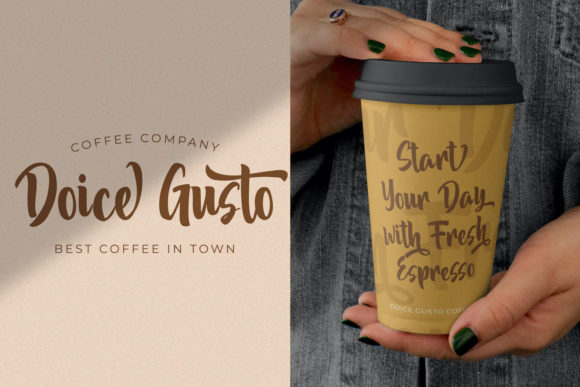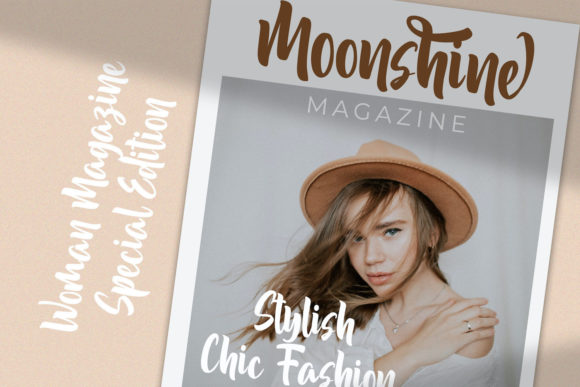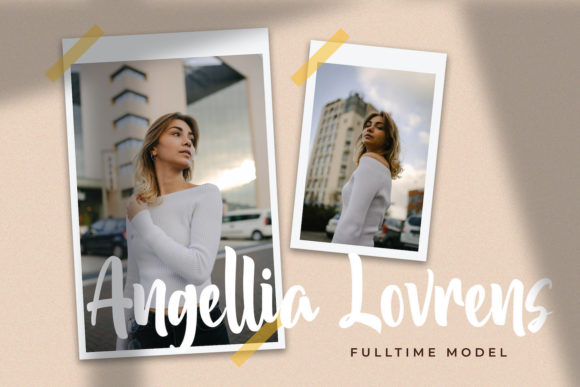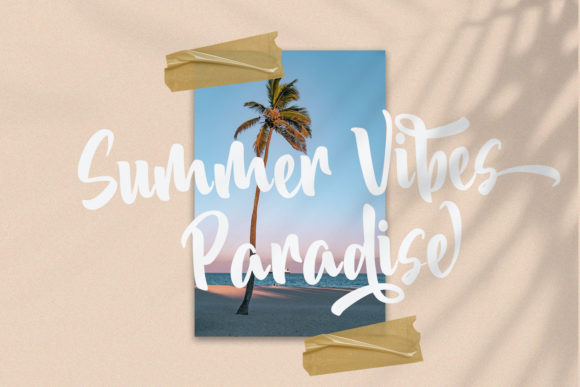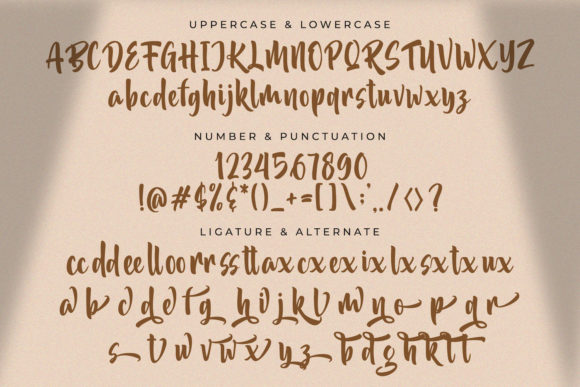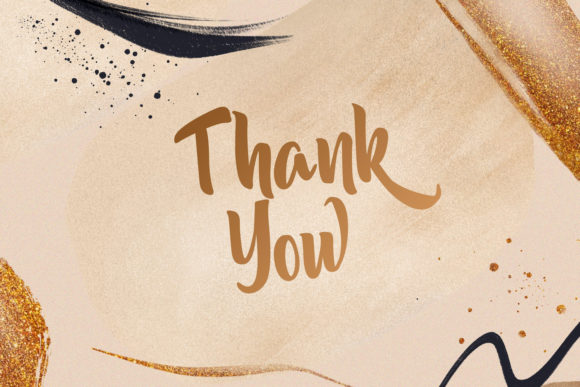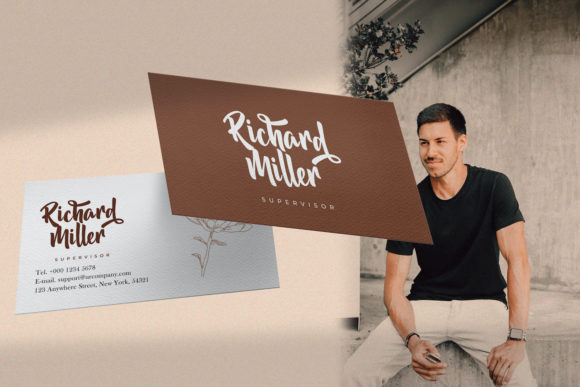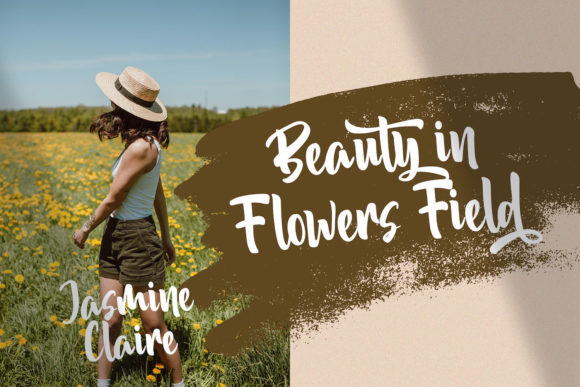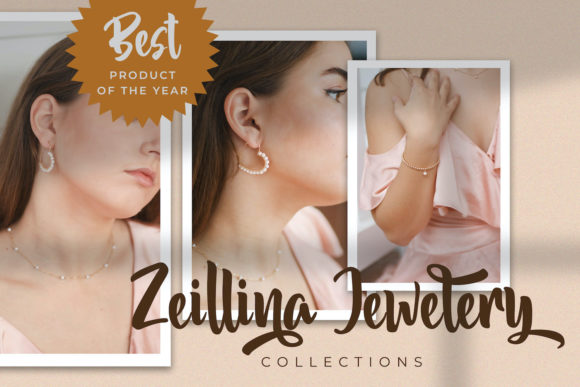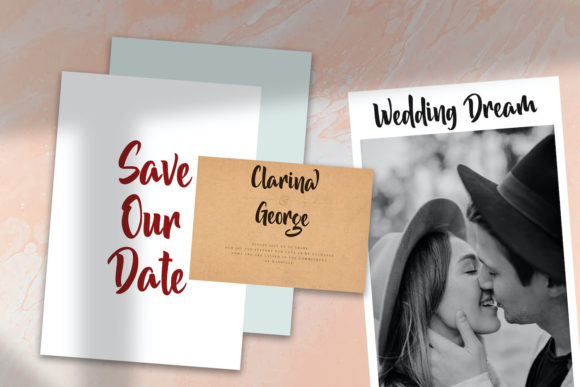
Akidan Hatory Font
About Akidan Hatory Font
Akidan Hatory is a mesmerizing script font that captures the essence of magic and elegance. With its carefully crafted design and enchanting details, this font is the perfect choice for bringing a touch of whimsy and beauty to your creative projects.
The flowing and graceful nature of Akidan Hatory’s script creates a sense of movement and harmony in each letter. The delicate curves and intricate flourishes add a sense of elegance and sophistication, making it a captivating choice for various design purposes. Whether you’re looking to create stunning Instagram posts, design eye-catching logos, or add a touch of artistry to your DIY projects, Akidan Hatory will truly transform your ideas into works of art.
One of the remarkable features of Akidan Hatory is its PUA encoding. This means that you have easy access to a wide range of glyphs and swashes, allowing you to add even more versatility and creativity to your designs. You can effortlessly mix and match different letterforms, ligatures, and decorative elements to create unique and personalized compositions.
The versatility of Akidan Hatory extends to different design styles and themes. Its magical and elegant appearance makes it suitable for various occasions, including weddings, invitations, stationery, branding, and more. Whether you want to evoke a sense of romance and beauty or capture the enchantment of a fairy tale, this font will help you achieve your desired aesthetic.
When using Akidan Hatory, your creative ideas will come to life with a touch of charm and artistry. The attention to detail and the intricate craftsmanship of this font will elevate your designs and make them stand out from the crowd. It’s the perfect choice for those seeking a font that combines elegance, magic, and versatility.
In summary, Akidan Hatory is a magical script font that adds a touch of elegance and enchantment to your creative projects. With its carefully designed letterforms, PUA encoding, and captivating style, this font will transform your ideas into true pieces of art. Whether you’re working on social media graphics, branding materials, or DIY projects, Akidan Hatory is the perfect companion for bringing your creative visions to life.